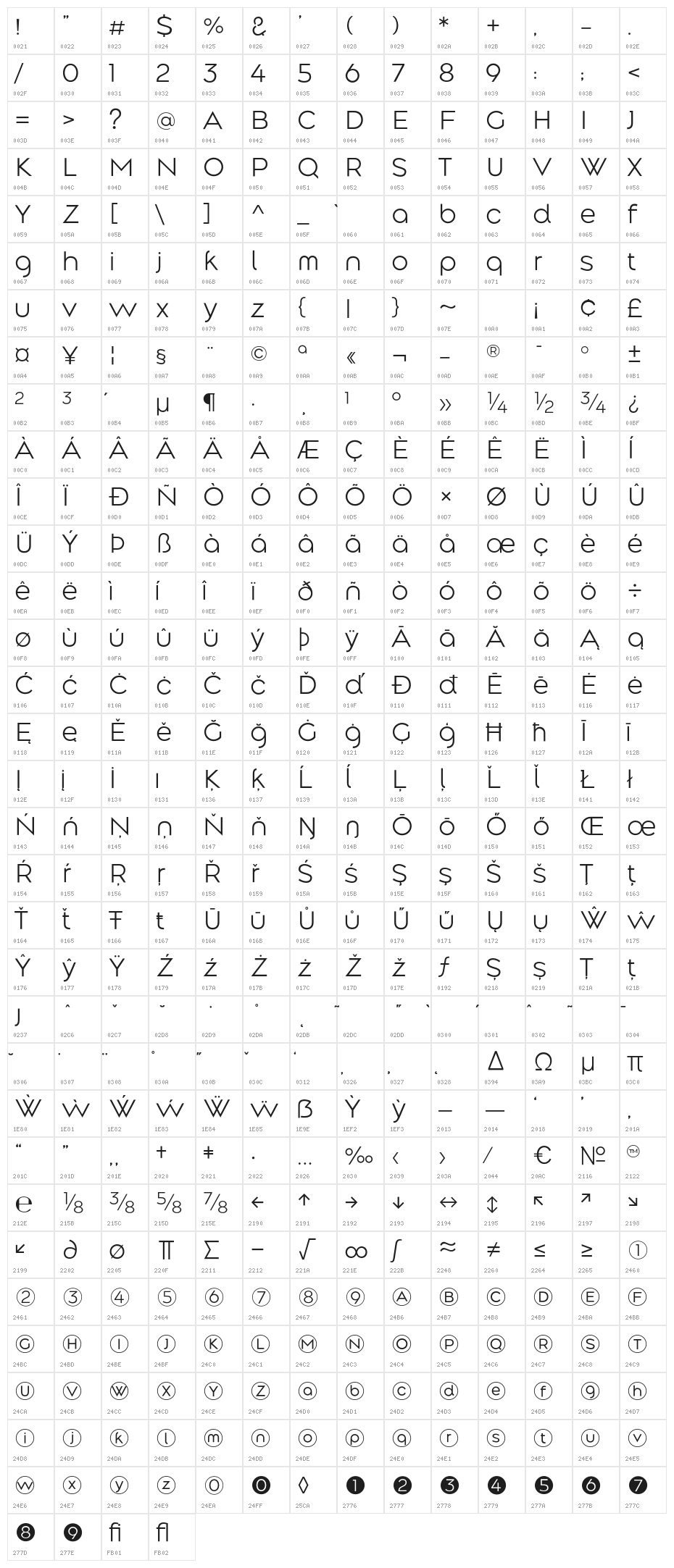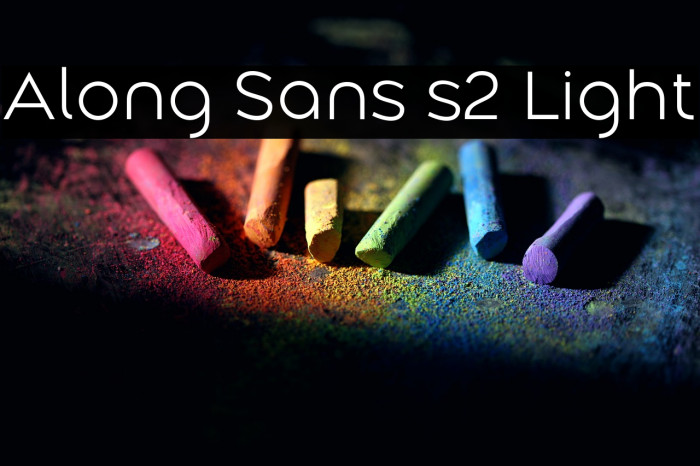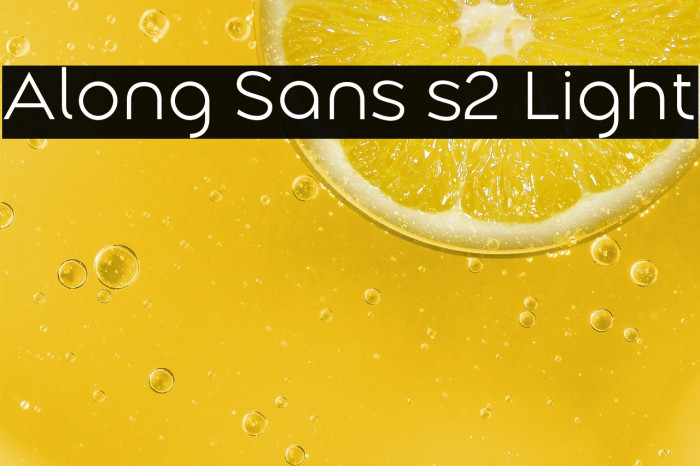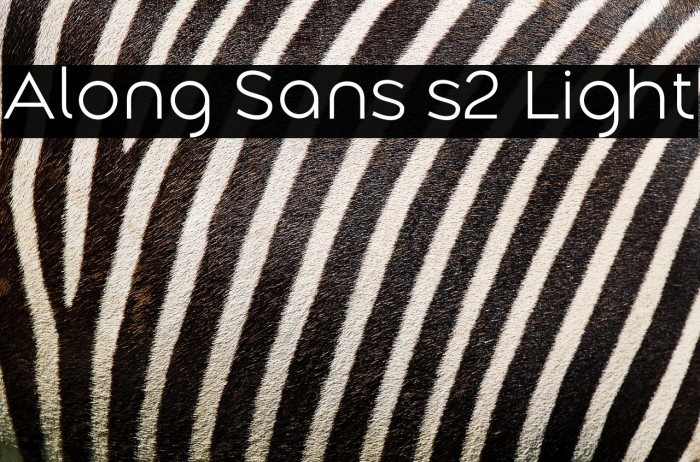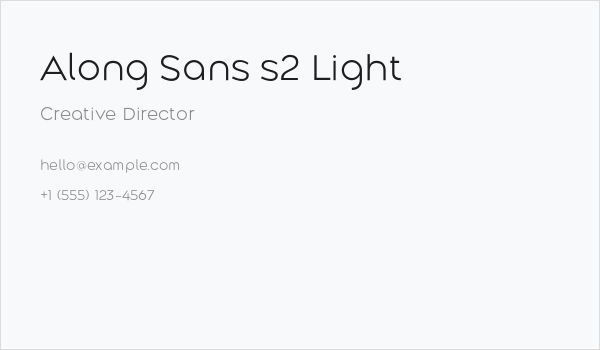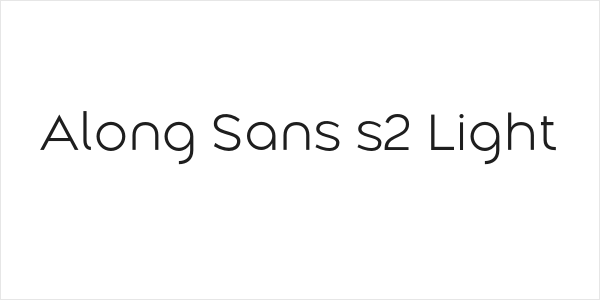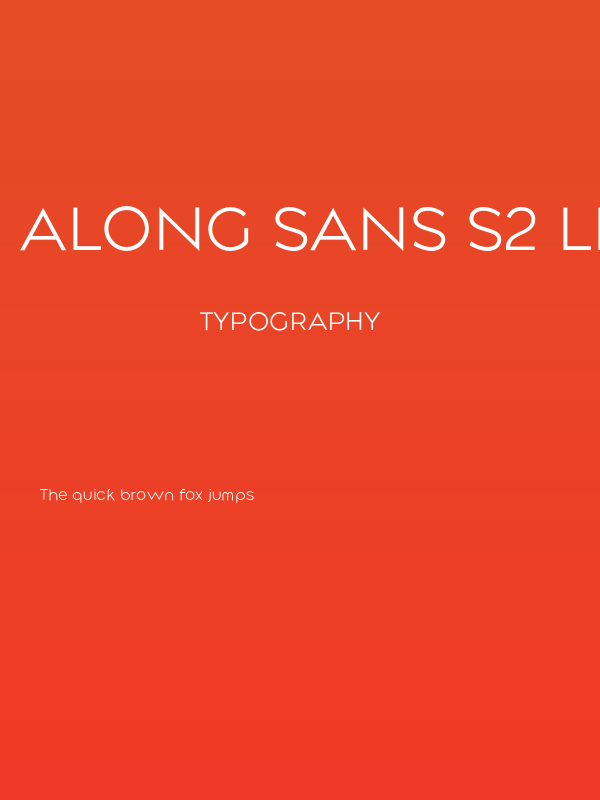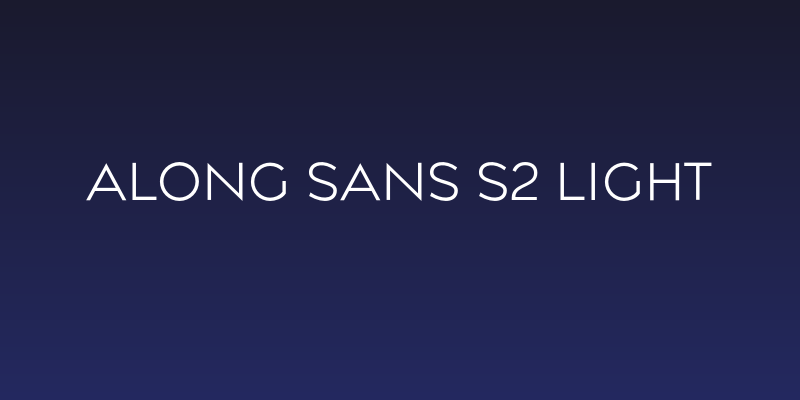
Along Sans s2 Light Font
Along Sans s2 Light Description
This font features a clean and modern sans-serif design with a light weight, offering a sleek and minimalist appearance. The characters are well-proportioned with a consistent stroke width, providing a harmonious and balanced look. The uppercase letters are bold and geometric, while the lowercase letters maintain a smooth and rounded form, enhancing readability. The numerals are clear and distinct, making them suitable for various applications. The special characters are designed with simplicity in mind, ensuring they blend seamlessly with the rest of the typeface. Overall, this font exudes a contemporary and professional aesthetic, making it versatile for numerous design projects.